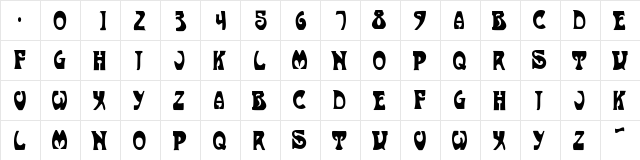
NouveauUne Regular
Design Context for NouveauUne Typeface
NouveauUne is a composed and adaptable typeface that performs quietly and consistently across a wide range of design contexts.